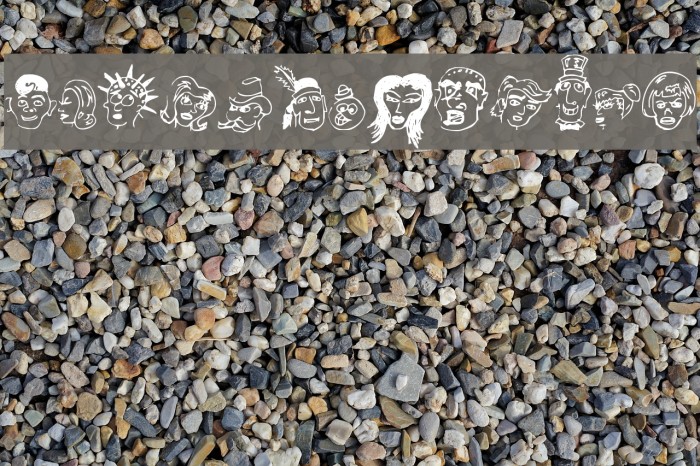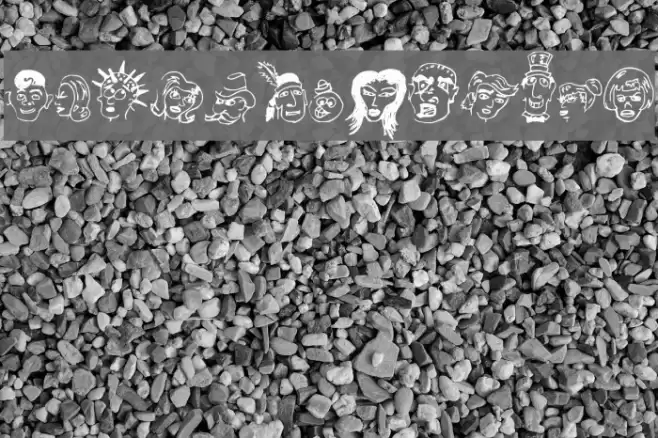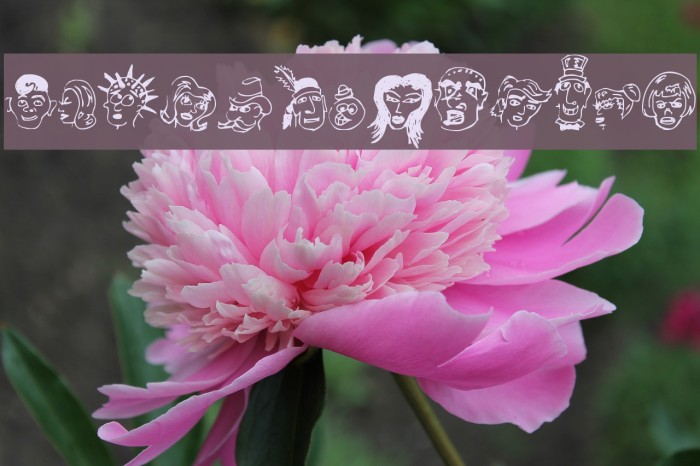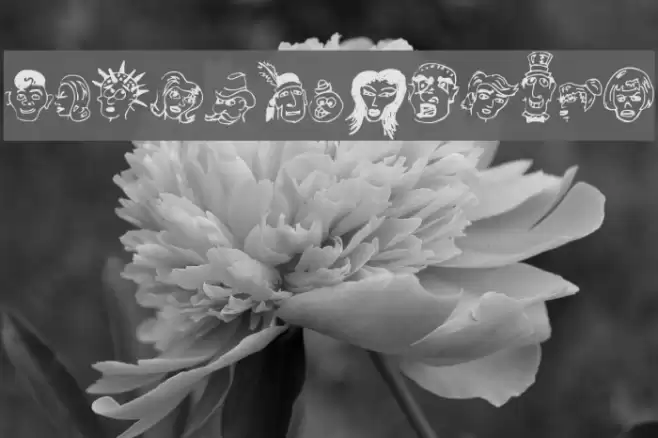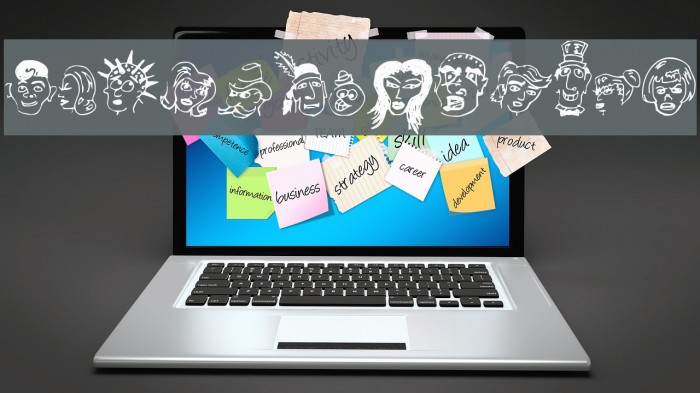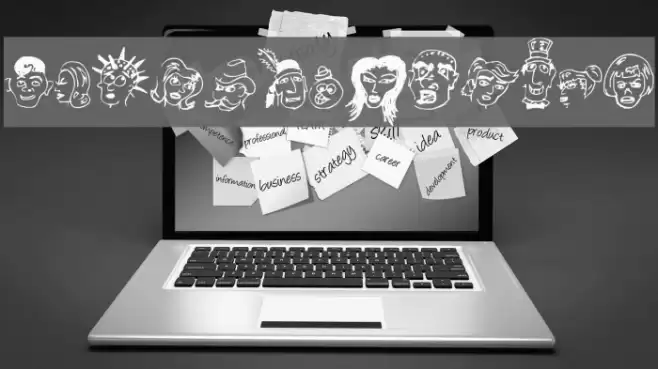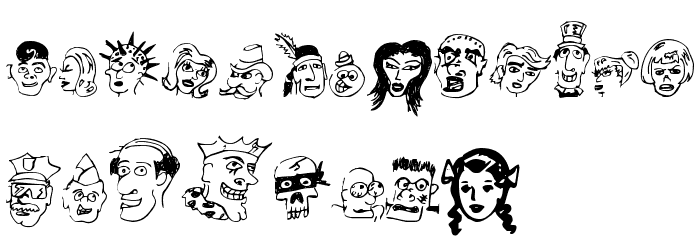
21 Heads Font
21 Heads Description
A collection of hand-drawn, cartoonish character heads with exaggerated features, each unique in expression and style, rendered in black and white line art.
| Overall Style | Decorative, Playful, Cartoonish |
| Use Case | Logos, Posters, Illustrations, Themed event materials |
| Proposed Projects | Comics, children's books, posters, stickers, novelty merchandise, creative branding. |